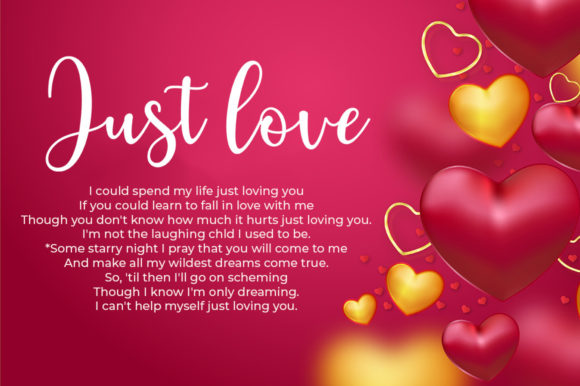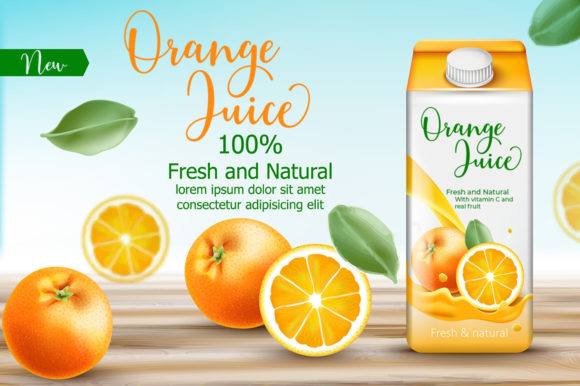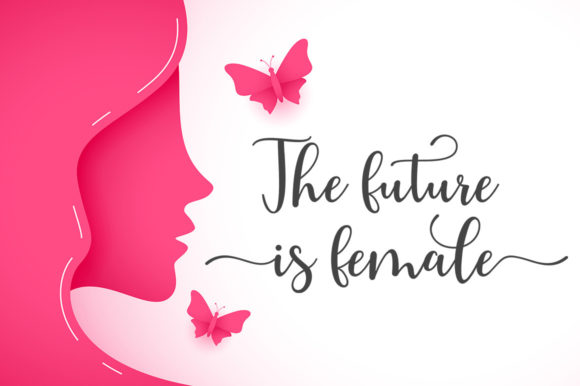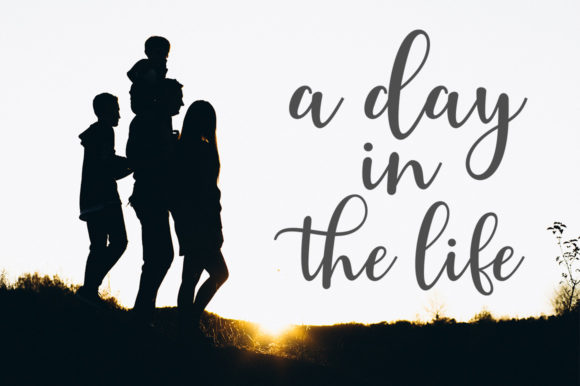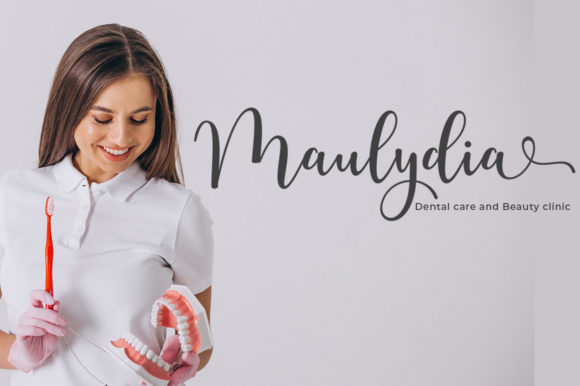
Adding a Touch of Elegance with the Angel Love Font
Have you ever been working on a design project, pouring your heart and soul into it, and then suddenly, you’re stuck? You need that perfect font to bring your vision to life, but nothing seems to fit the bill. This is where the magic happens, and you stumble upon the perfect font – the Angel Love Font. With its romantic and sweet calligraphy style, this font is sure to add a luxury spark to any design project you can think of.
Whether you’re a seasoned designer or just starting out, the Angel Love Font is a valuable addition to your toolkit. Its PUA encoding allows you to access all the amazing glyphs and ligatures with ease, giving you endless possibilities to create stunning designs. With the Angel Love Font, you’ll be able to take your designs to the next level and make them truly unforgettable.
- Unique Characteristics: This font features a unique blend of elegant and romantic elements, making it perfect for designs that require a touch of sophistication and love.
Angel Love Font Review
I recently had the chance to work with the Angel Love Font, and I must say it’s a unique and eye-catching choice for any design project. ✨ The font’s elegant, cursive script is perfect for creating a sense of romance and whimsy in your designs.
The Angel Love Font is great for:
- Creating invitations and wedding stationery
- Designing greeting cards and gift tags
- Adding a touch of elegance to your branding and marketing materials
However, I did encounter a few limitations with the font. ⚠️ The font’s high stroke weight can make it difficult to read at smaller sizes, and the font’s cursive nature can make it challenging to pair with other fonts.
Overall, I think the Angel Love Font is a solid choice for designers looking to add a touch of romance and whimsy to their projects. While it may have some limitations, its unique style and elegance make it a great option for certain types of designs.
Tips for Getting the Most Out of the Angel Love Font
1. Use the font in combination with other elegant fonts to create a sophisticated design.
2. Experiment with different font sizes and styles to add emphasis to your text.
3. Use the font to create a beautiful title or heading.
2. Luxury branding and marketing materials.
3. Elegant event invitations and programs.
Alternatives to Angel Love Font for Designers
Great Vibes is a beautiful, elegant script font perfect for adding a touch of sophistication and romance to your designs. It is ideal for use in wedding invitations, greeting cards, and other creative projects that require a sense of whimsy and playfulness.
Compared to Angel Love Font, Great Vibes has a more refined and sophisticated feel, making it suitable for a wider range of designs. While Angel Love Font is more playful and childlike, Great Vibes is more mature and elegant.
Pacifico is a beautiful, modern script font inspired by the Pacific coastline. It is ideal for use in designs that require a sense of calmness and serenity, such as restaurant menus, travel brochures, and spa websites.